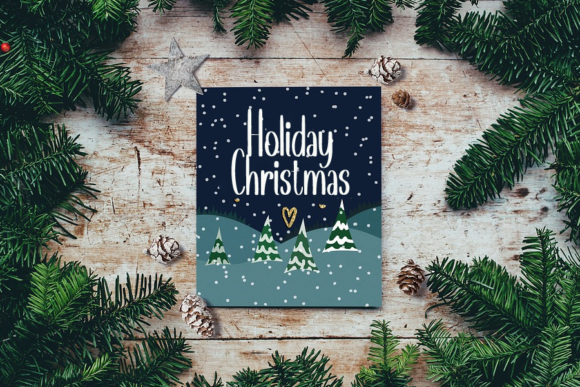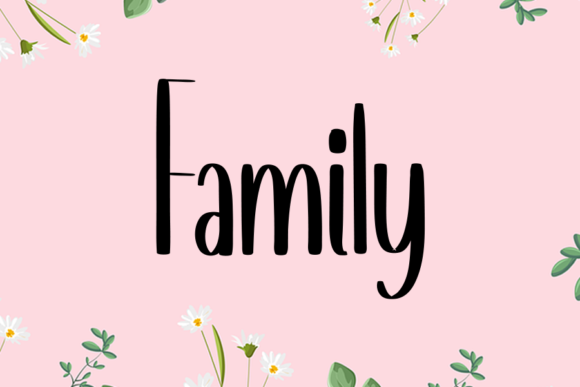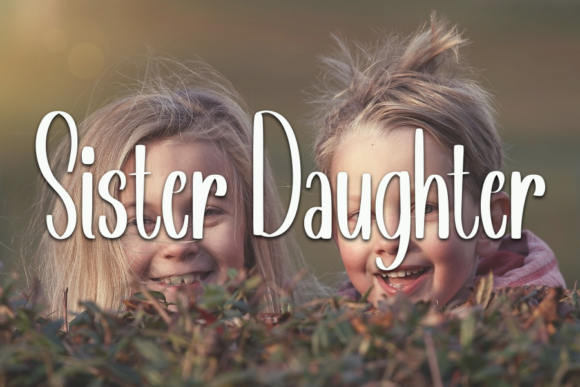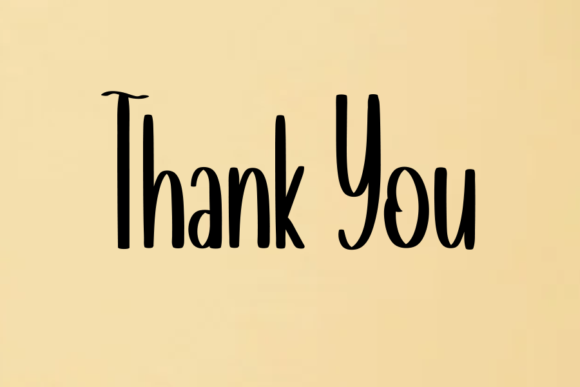
Happiness Font
About Happiness Font
Happiness is a delicate handwritten font that has a modern yet whimsical style. It will undoubtedly immerse your designs into a magical world.